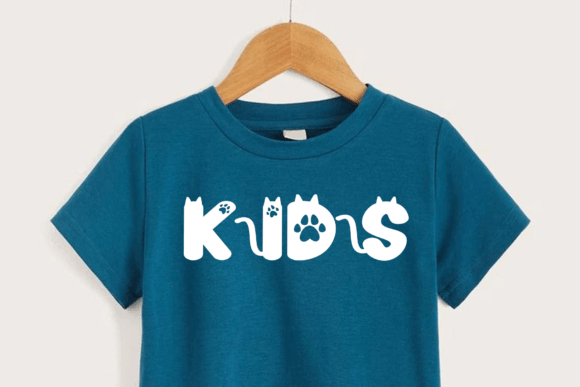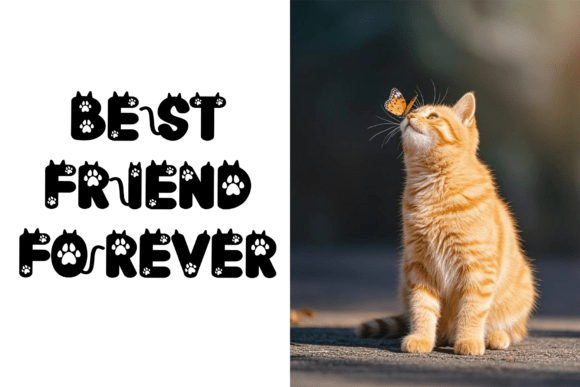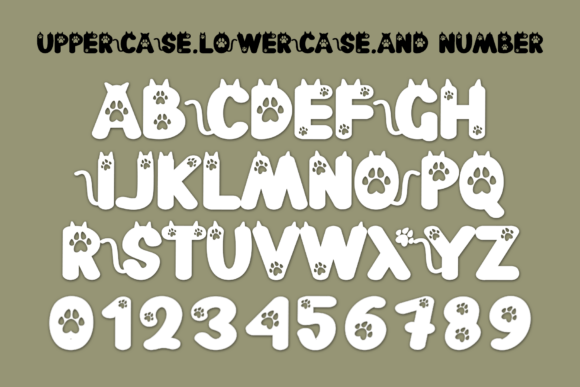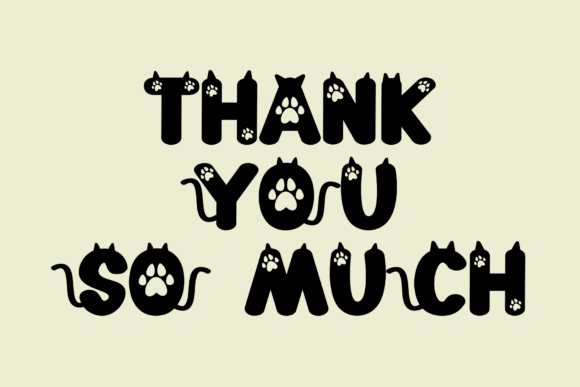
Cute Cat Font: The Purr-fect Addition to Your Design Projects
Are you a designer or crafter looking for a font that adds a touch of whimsy and fun to your projects? Look no further than the Cute Cat Font! This charming display font is designed to celebrate all things feline, with playful curves, cat-ear accents, and adorable paw prints integrated into its characters.
A Unique and Playful Design
The Cute Cat Font is a bold, rounded font that is sure to capture the attention of your audience. Its unique design features cat-ear accents and paw prints, giving it a distinctly feline personality. The font’s playful curves and rounded shapes ensure excellent readability, making it perfect for a variety of design projects.
Ideal for Kid-Friendly and Pet-Themed Designs
The Cute Cat Font is ideal for designers and crafters who specialize in kid-friendly and pet-themed designs. Its charming and whimsical design makes it perfect for children’s books, pet products, and apparel. The font’s bold and rounded shapes ensure that it is easy to read, even for young children.
The Cute Cat Font is a versatile font that can be used for a variety of design projects, including:
- Posters: Add a touch of whimsy to your posters with the Cute Cat Font. Its bold and rounded shapes make it perfect for eye-catching headlines and titles.
- Children’s Books: The Cute Cat Font is ideal for children’s books, with its playful curves and adorable paw prints. It’s sure to delight young readers and add a touch of magic to your story.
- Product Packaging: Add a touch of fun and personality to your product packaging with the Cute Cat Font. Its unique design makes it perfect for pet products, toys, and other fun items.
- Apparel: The Cute Cat Font is perfect for designing fun and playful apparel, such as t-shirts, hats, and tote bags.
- Invitations: Add a touch of whimsy to your invitations with the Cute Cat Font. Its charming design makes it perfect for birthday parties, pet-themed events, and other fun celebrations.
- Branding: The Cute Cat Font can also be used for branding, adding a touch of personality and whimsy to your logo and marketing materials.
Why Choose the Cute Cat Font?
There are many reasons why designers and crafters choose the Cute Cat Font for their projects. Here are just a few:
- Unique Design: The Cute Cat Font has a unique and playful design that sets it apart from other fonts.
- Excellent Readability: The font’s bold and rounded shapes ensure excellent readability, making it perfect for a variety of design projects.
- Versatility: The Cute Cat Font can be used for a variety of design projects, from posters and children’s books to product packaging and apparel.
- Fun and Whimsical: The font’s charming and whimsical design adds a touch of fun and personality to any project.
The Cute Cat Font is a charming and whimsical display font that is perfect for designers and crafters who want to add a touch of fun and personality to their projects. Its unique design, excellent readability, and versatility make it ideal for a variety of design projects, from kid-friendly and pet-themed designs to posters, children’s books, and product packaging. So why not give the Cute Cat Font a try and see how it can add a heartwarming, purr-fectly creative touch to your next project?